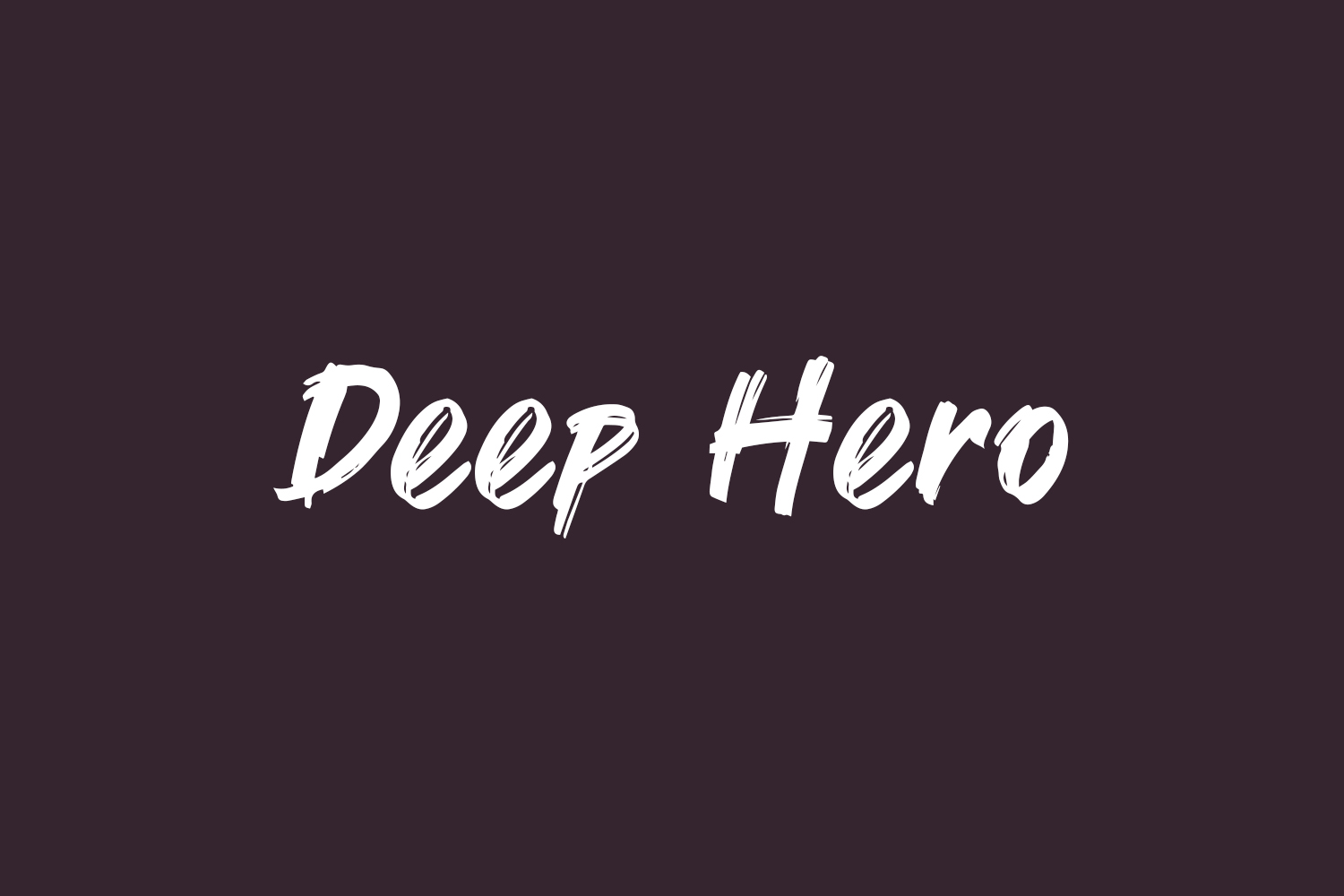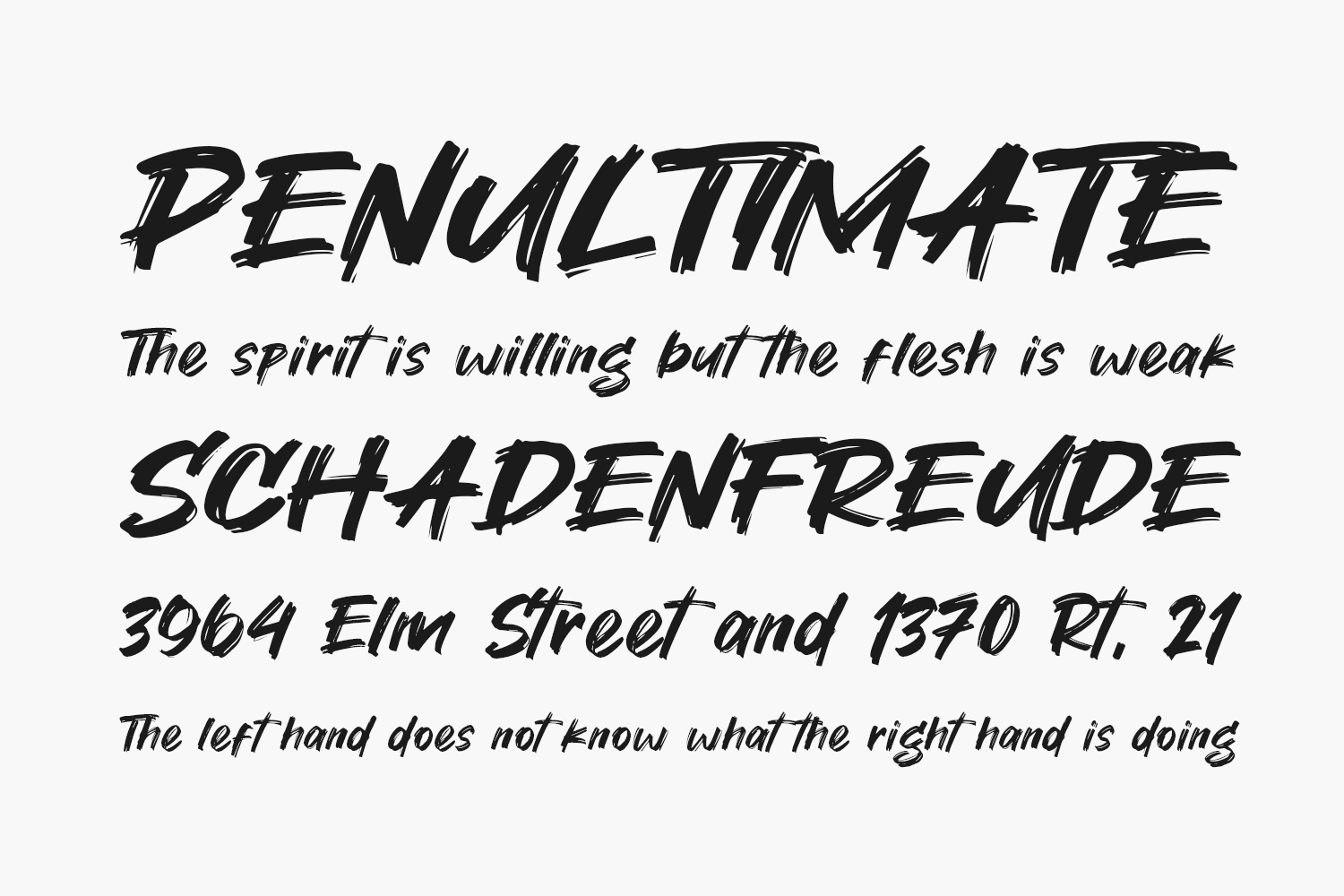
Deep Hero is a modern brush font designed to bring boldness and energy to your creative projects. With its lively strokes, rich textures, and dynamic structure, this free font is perfect for creating eye-catching logos, stylish book covers, vibrant posters, magazine layouts, and more. Available in OTF and TTF formats, Deep Hero supports basic Latin characters and can be used freely for personal projects or with a purchased license for commercial use.
Why Choose Deep Hero?
- Bold & Readable Style: Designed for maximum legibility even at a distance.
- Ideal for Headlines: Great for posters, billboards, magazine covers, and digital banners.
Where to Use Deep Hero?
Deep Hero shines in high-impact visual projects:
- Poster & Billboard Design: Perfect for event posters, movie titles, and outdoor advertising.
- Hero Headers: Creates bold, eye-catching text on websites, landing pages, and presentations.
- Editorial Design: Stands out in magazine layouts, blog headers, or news banners.
- Packaging Design: Ideal for labels on energy drinks, streetwear, or action product packaging.
- Logo Design: Brings authority and confidence to brand identities of sports, tech, or action brands.
Design Tips with Deep Hero
To maximize the impact of Deep Hero, pair it with minimalistic layouts and neutral backgrounds to keep the focus on typography. Use this bold font at large sizes to highlight key messages or slogans. For web use, ensure proper spacing and contrast for optimal readability. Try our interactive font preview tool below to test Deep Hero with your own text before downloading!